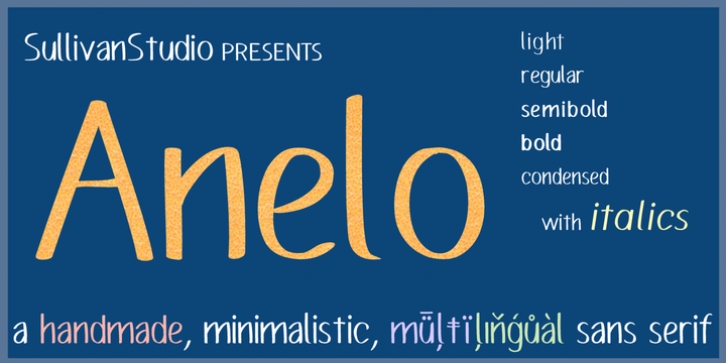
Publisher: SullivanStudio
Anelo was designed by Ariel Sullivan and published by SullivanStudio. Anelo contains 16 styles and family package options.
Anelo is about beauty with objectivity. A handmade sans serif with a humanist style. 813 latin glyphs covering lots of Western and Eastern European alphabets.
You can use Anelo from a Math equation (there are 66 Greek/Coptic glyps) to billboards and traffic signs. Its crisp, upright, handmade aspect takes communication to a personal level.
Anelo has some important OpenType features, like: kerning, standard ligatures, old style figures and diagonal fractions. There are 25 currency symbols, including Euro ₠ €, Shekel ₪ and Bitcoin ₿.
Each Anelo style has a condensed version, which gives room to many interesting combinations. For best results on screen, the Semibold Family is recommended.